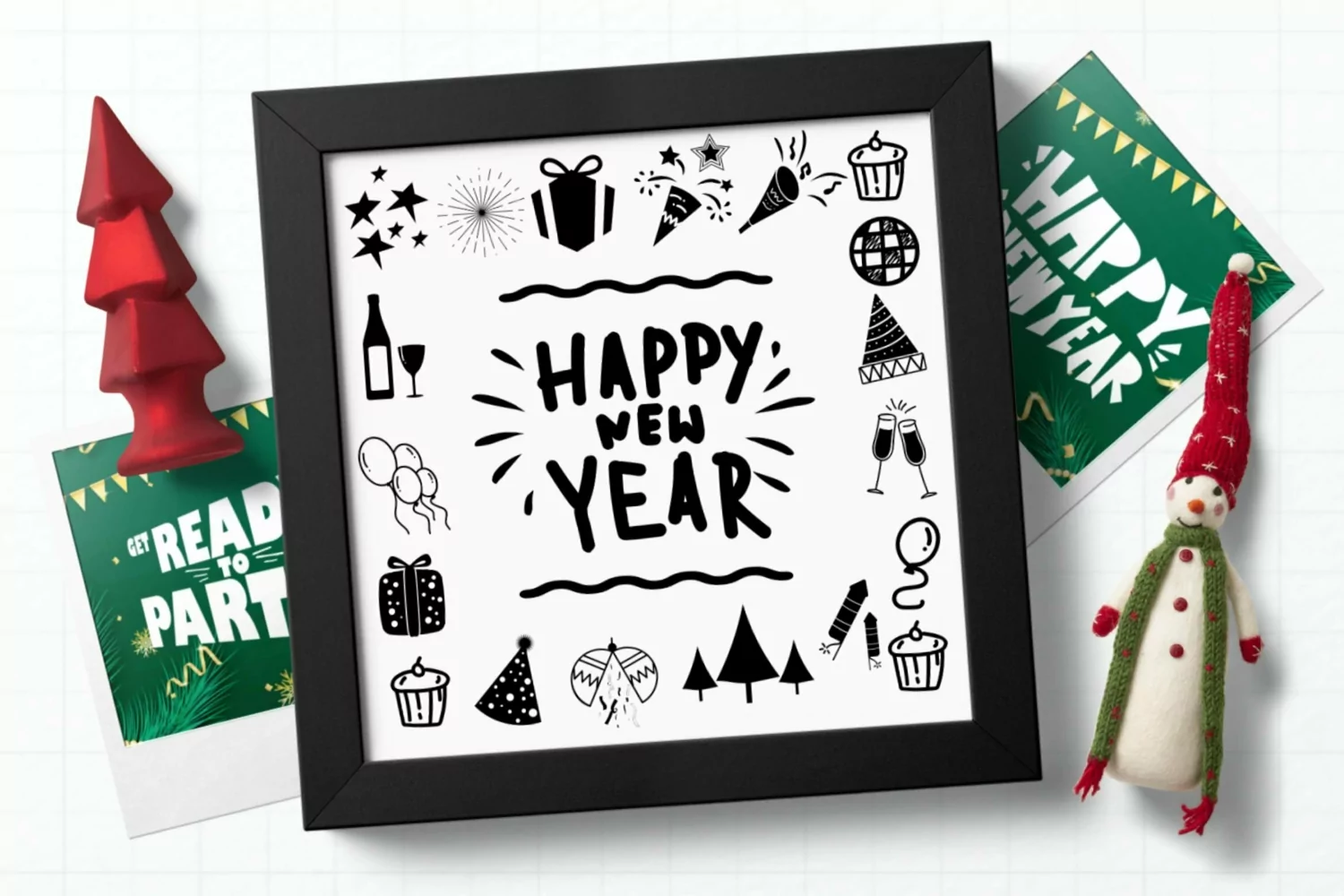
Web Font New Year Dingbats
New Year Dingbats for some designs such as the logotype, brand, packaging, quotes, music poster, t-shirt, cover book and more custom design. The features uppercase, lowercase, numeral, punctuation & symbol, multilingual support.